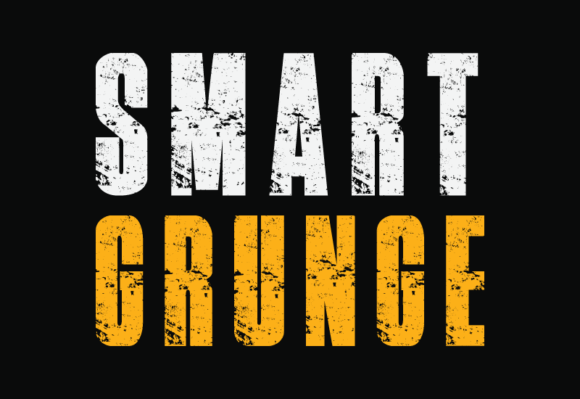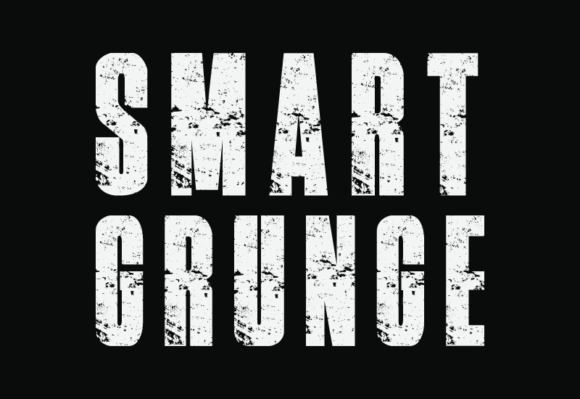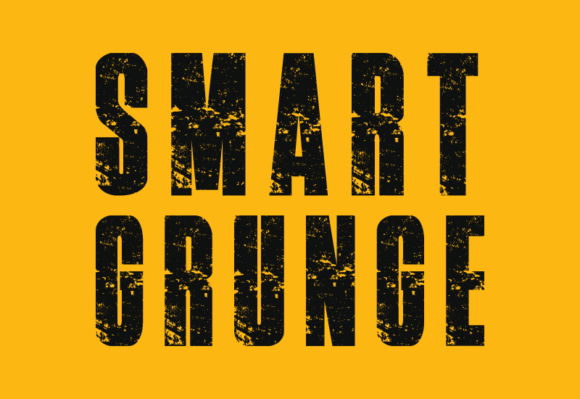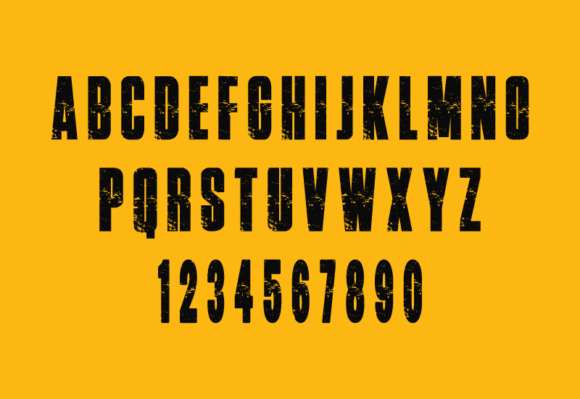
Smart Grunge Font: Bold Display Font for Edgy Poster Design
About the Smart Grunge Font
Add a touch of class to your work with the Smart Grunge Font, a truly exceptional typeface. Unleash the power of distinctiveness with our ‘Smart Grunge’ Display font. Renowned for its edgy yet unique design, Smart Grunge is more than just a typeface. Each of its raw, rough lines is layered with a distressed texture, nurturing an aura of grit and dissent. With its unapologetic boldness and individualistic spirit, Smart Grunge delivers the perfect textural complement for projects that thrive in audacity. From disruptive poster graphics and audacious album covers to distinctive streetwear branding, Smart Grunge is crafted to embody the essence of non-conformity. Allow Smart Grunge to enhance your design aesthetics and shout out your messaging with profound impact.
Smart Grunge Font Usage Examples
Smart Grunge Font Example